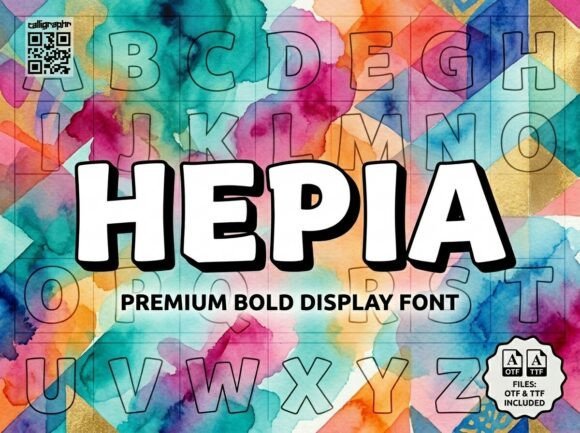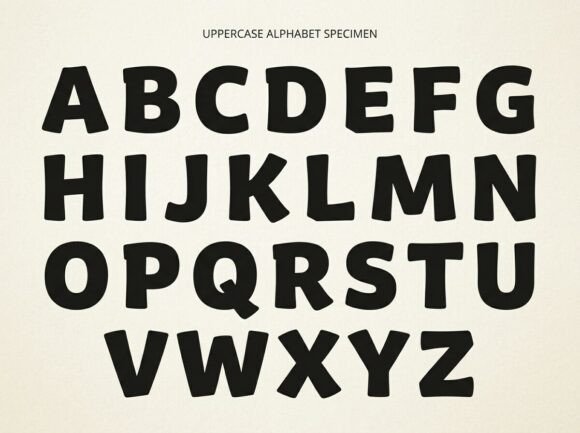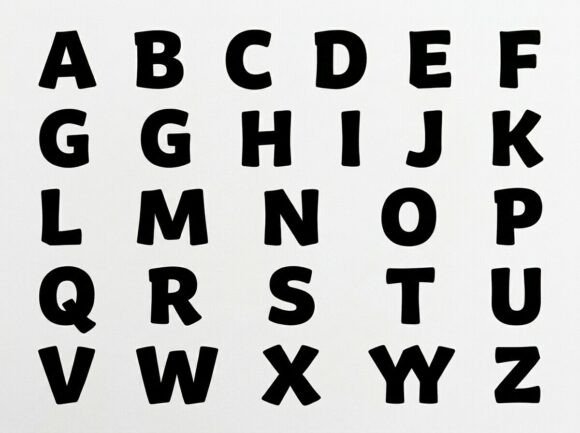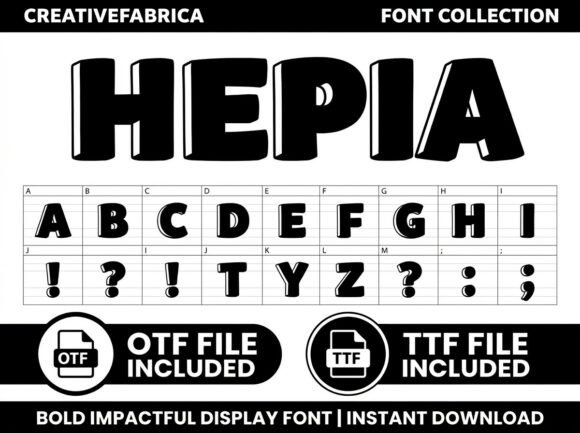
Elevate Your Creative Projects with Hepia Font
Have you ever been working on a design project, pouring your heart and soul into every detail, and suddenly you hit a roadblock? You need that one special element to take your project from good to great. For designers, this moment is all too familiar. That’s where the Hepia Font comes in – a decorative display font designed to be the centerpiece of any layout.
Perfect for breaking away from the ordinary, Hepia Font is a powerful tool for logos, titles, and decorative initials. Its distinct artistic elements and strong character make it ideal for creators who want to deliver a high-end, professional aesthetic without compromising on personality. With its versatility and unique style, the Hepia Font is a valuable addition to any designer’s toolkit.
Hepia Font Key Features
- Font Family: Hepia Font is a sans-serif font family designed for clear readability and modern aesthetics.
- Character Set: The font family includes a comprehensive character set, covering Latin, Greek, and Cyrillic alphabets, as well as a range of punctuation and symbol glyphs.
- Font Size: Hepia Font is available in multiple weights, ranging from Light (300) to Bold (900), providing flexibility for various design applications.
- Unique Characteristics: Hepia Font features a unique geometric shape, with clean lines and subtle rounded edges, giving it a distinctive and modern look.
Hepia Font Review
I recently had the chance to work with the Hepia Font, and I must say it’s a mixed bag. On the one hand, I appreciate the unique aesthetic it brings to the table.
- Quirky Character**: The Hepia Font has a distinct personality that can add a touch of whimsy to your designs.
- Legibility**: Despite its unconventional style, the font is surprisingly easy to read, making it a great choice for body text.
- Limited Versatility**: The Hepia Font is best suited for creative, eye-catching projects. It may not be the best choice for more conservative or formal designs.
- Overuse**: With its unique style, there’s a risk of overusing the font, which can lead to visual fatigue.
Overall, I think the Hepia Font is a great addition to any designer’s toolkit, but it’s essential to use it judiciously. When used in the right context, it can add a touch of magic to your designs. However, it’s not a one-size-fits-all solution, and designers should be aware of its limitations before using it.
Creative Project Ideas Using Hepia Font
Project 1: Retro-Style Infographic
Create a visually striking infographic that showcases interesting statistics and data using the Hepia Font. The unique, geometric design of the font will add a touch of retro flair to your design.
Project 2: Brand Identity for a Vintage-Inspired Coffee Shop
Design a brand identity for a coffee shop that embodies the spirit of a bygone era, using the Hepia Font as the primary typeface.